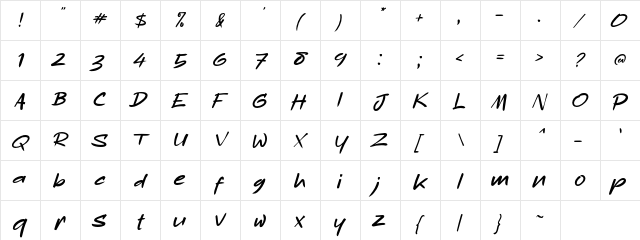
Complete a Apa Bedone 11 12 Regular glyph index. Displaying only characters natively supported by a Apa Bedone 11 12 Regular font.
a Apa Bedone 11 12 is a composed and adaptable typeface that performs quietly and consistently across a wide range of design contexts.